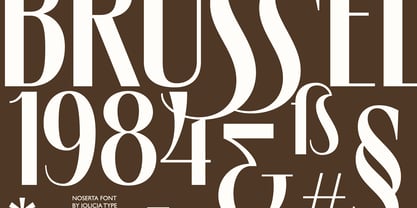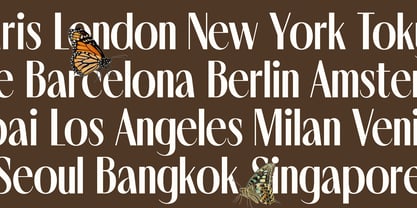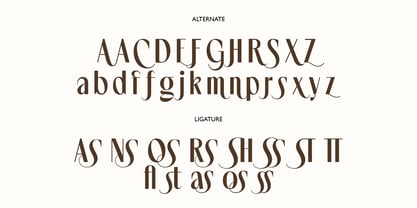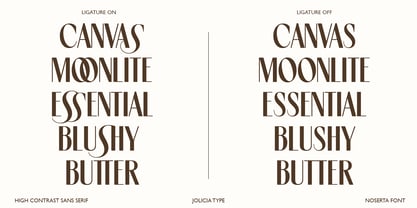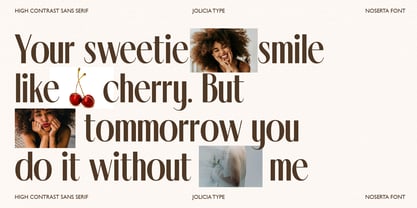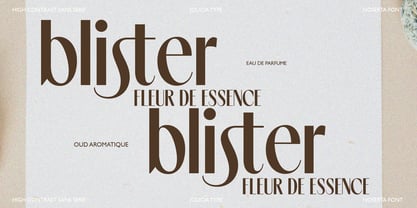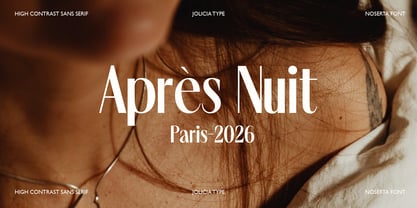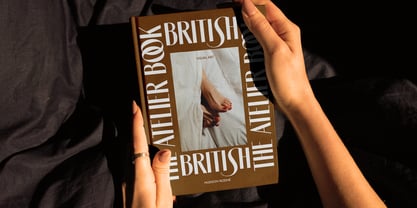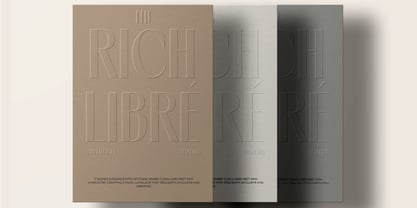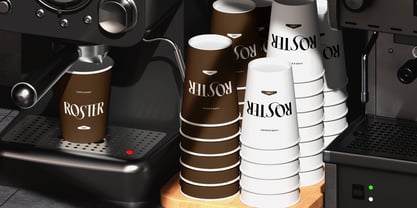
Noserta
by Jolicia Type
The Noserta Font Family was designed by Laire Banyu and published by Jolicia Type. Noserta contains 1 styles. More about this family
Noserta is a modern high-contrast sans-serif typeface designed to deliver elegance, clarity, and a strong contemporary presence. It features a refined balance between sharp vertical strokes and delicate thin lines, bringing a luxurious yet confident character to any visual composition. What truly sets Noserta apart is its unique ligature system, thoughtfully crafted to create beautiful connections between pairs of letters. These ligatures flow seamlessly, enhancing readability while adding a subtle decorative rhythm that feels natural, sophisticated, and visually captivating—perfect for designers who seek refined details without sacrificing modern simplicity. With its clean structure and elegant contrast, Noserta excels in branding, logo design, editorial layouts, fashion identities, premium packaging, headlines, and modern digital interfaces. The font effortlessly adapts to both bold statements and refined typographic expressions, making it a versatile choice for high-end and contemporary design projects. Noserta is more than just a sans serif; it's a statement of modern elegance, where precision meets artistry, and every connection between letters tells a story of thoughtful design.
Designers: Laire Banyu
Foundry: Jolicia Type